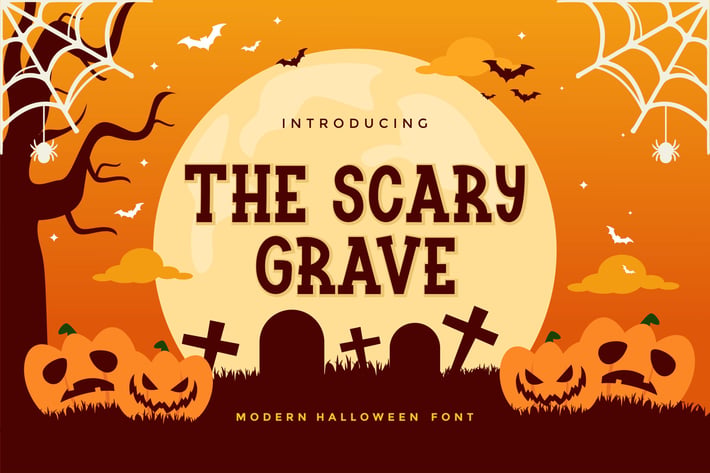
The Scary Grave - Halloween Font
Introducing our new product The Scary Grave - Modern Font
The Scary Grave is a bold, modern display font with playful flair, ideal for attention-grabbing headlines, logos, and diverse design projects. Versatile and readable in both digital and print, The Scary Grave adds a dynamic touch to your message.